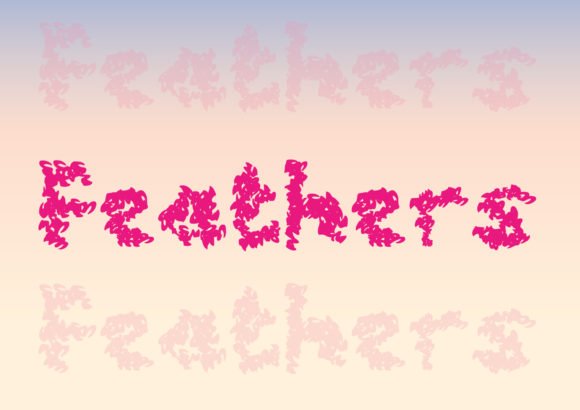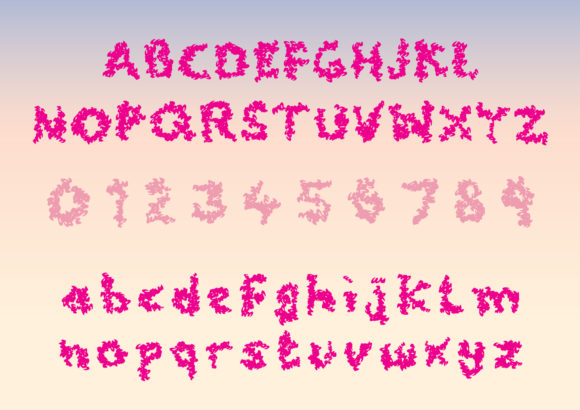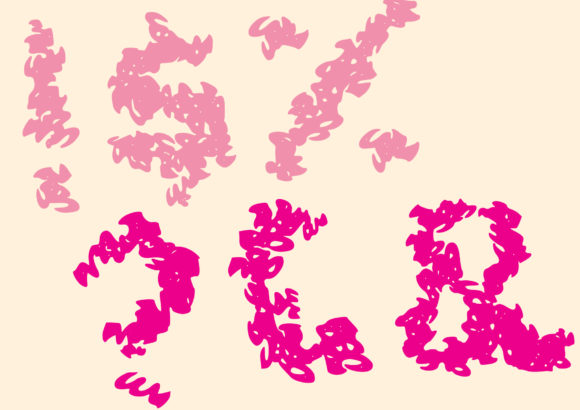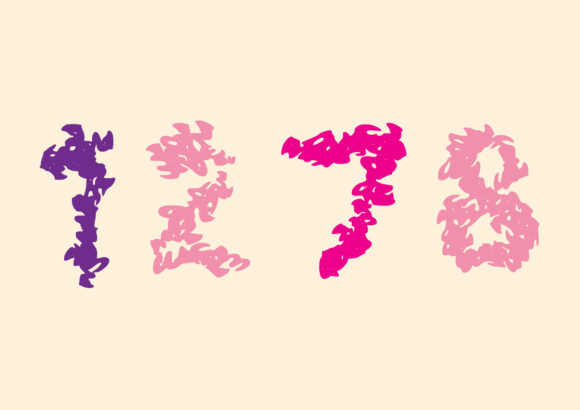
Unleash Your Creativity with Feathers Font
Do you ever find yourself staring at a blank canvas, wondering what to create next? Maybe it’s a birthday card, a customized t-shirt, or a festive banner. Whatever it is, you know it needs a dash of personality to make it truly special. That’s where the Feathers Font comes in – a delightful, quirky typeface that’s sure to bring a smile to your face and a touch of whimsy to your projects.
Feathers Font is all about embracing the fun and playfulness of design. With its unique, hand-drawn style, it’s the perfect choice for anyone looking to add a bit of authenticity to their crafting endeavors. Whether you’re a seasoned designer or just starting out, Feathers Font is a valuable tool in your creative arsenal – and with its endless possibilities, the only limit is your imagination!
- Unique Characteristics: The Feathers font features a unique blend of modern and vintage elements, with a distinctive feather-inspired design.
Feathers Font Review
As a designer, I was excited to dive into the Feathers Font and see what it had to offer. Here’s my honest review.
What works well
✨ I love the playful and whimsical feel of the Feathers Font. It’s perfect for creating eye-catching headings and titles that add a touch of elegance to any design. The font’s unique features, such as the feather-inspired glyphs, make it stand out from more traditional fonts.
⚠️ One major limitation of the Feathers Font is its limited character set. It’s not suitable for body text or long blocks of text, as it can be difficult to read. Additionally, the font’s complexity may make it challenging to pair with other fonts or designs.
The Feathers Font is a great addition to any designer’s toolkit, but it’s best used sparingly. Its unique features and elegant feel make it perfect for creating striking headings and titles, but its limitations mean it’s not suitable for everyday use. Overall, I’d give it 3.5 out of 5 stars.
Design Tips
- Use the Feathers Font for headings and titles only.
- Pair it with a more traditional font for body text.
- Experiment with different font sizes and colors to make the most of the font’s unique features.
Tips for Getting the Most Out of Feathers Font
Use Feathers font for creative and playful designs, such as:
- Children’s book covers and illustrations.
- Party invitations and decorations.
- Brand logos and marketing materials.
Experiment with different font sizes, colors, and styles to achieve the desired effect.
Feathers font is commonly used in:
- Children’s products and services.
- Event planning and party design.
- Brand identity and marketing materials.
Alternatives to Feathers Font for Designers
Pacifico is a beautiful, elegant script font that’s perfect for creating a sophisticated and luxurious feel in your designs. It’s ideal for use in branding, packaging, and advertising materials where a touch of class is required. Compared to Feathers Font, Pacifico has a more refined and sophisticated look, making it a great choice for high-end designs.
Lato is a modern sans-serif font that’s highly versatile and suitable for a wide range of designs, from corporate materials to digital products. It’s particularly effective for use in headings and titles where a clean and clear font is needed. Compared to Feathers Font, Lato has a more minimalist and straightforward look, making it a great choice for modern and sleek designs.
Playfair Display is an elegant and luxurious script font that’s perfect for creating a sense of drama and sophistication in your designs. It’s ideal for use in titles, headings, and other display elements where a touch of elegance is required. Compared to Feathers Font, Playfair Display has a more ornate and luxurious look, making it a great choice for high-end designs and special occasions.